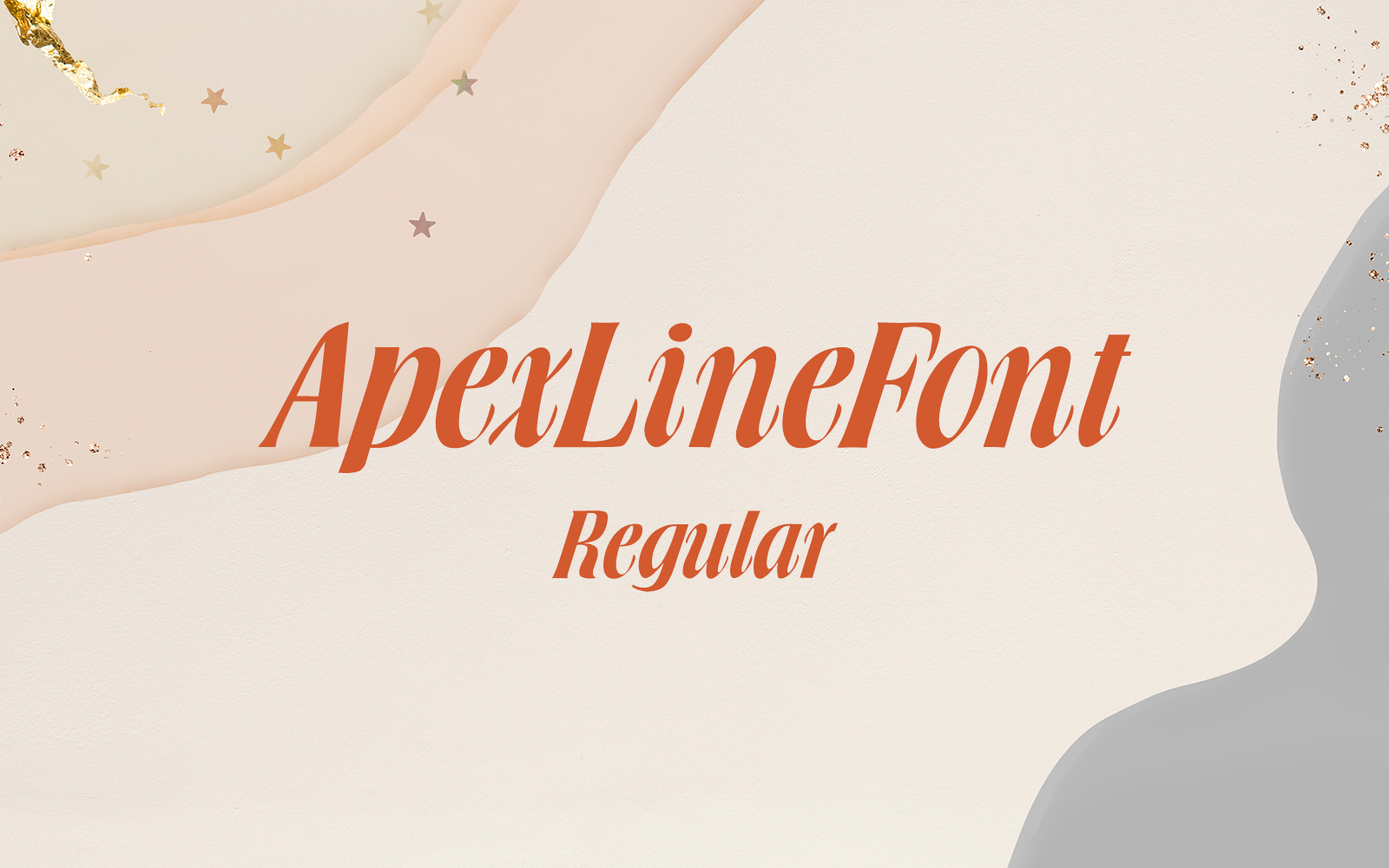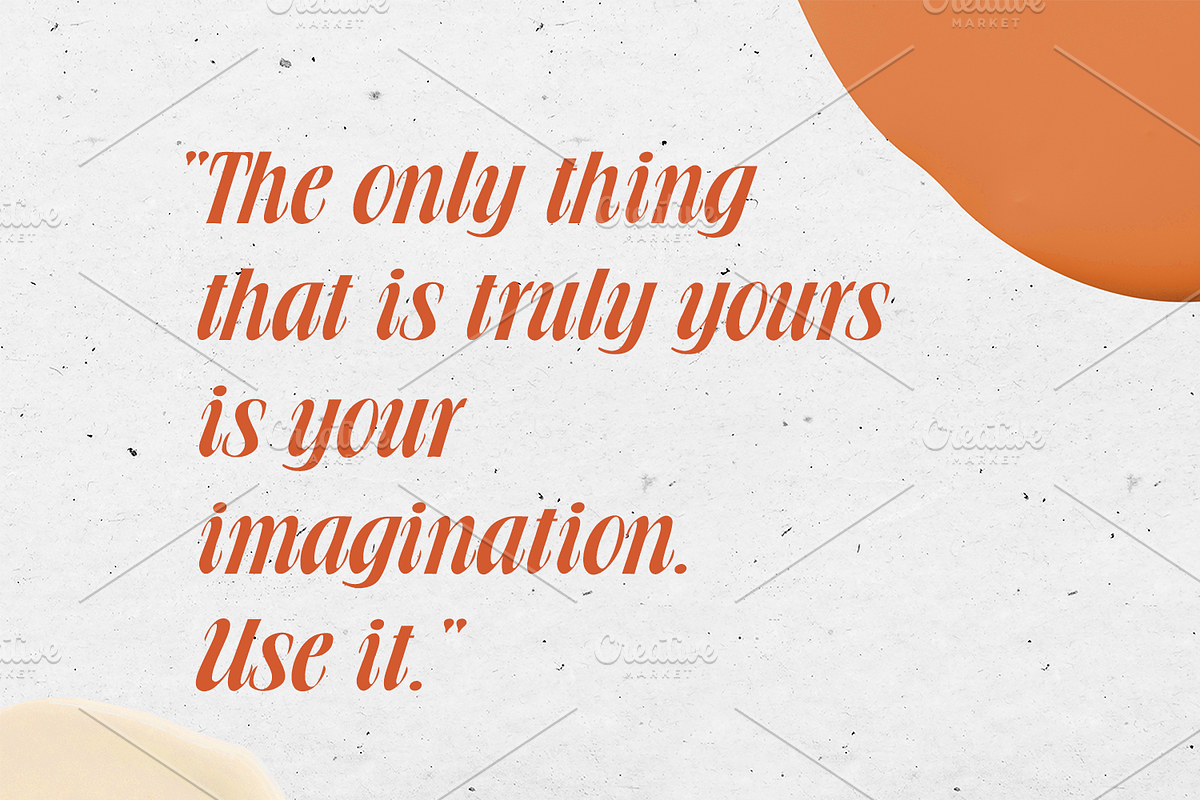
ApexLine Font-unique-022-24
Imagine a font that is both elegant and modern, combining thin, delicate strokes with bold, powerful lines. This contrast gives the font a unique character,
making it perfect for magazine headlines and posters.
The sleek thin sections add a sense of refinement and sophistication, while the thicker elements command attention and create visual impact. It's a typeface that balances grace with strength, offering versatility across different design contexts.